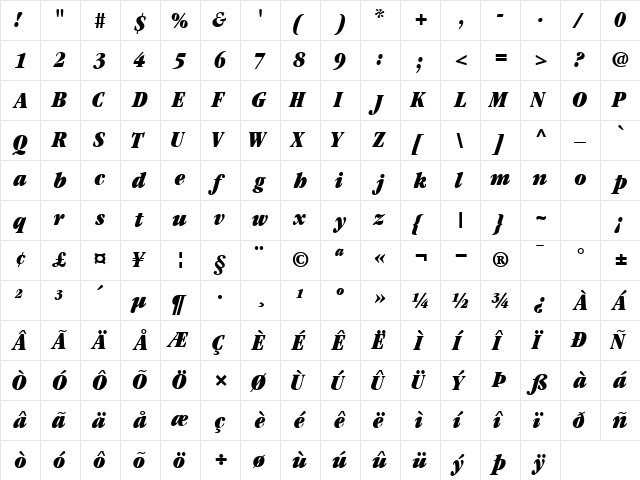
GaramondBlackCondSSK Bold Italic Font Preview
Design Context for GaramondBlackCondSSK Typeface
GaramondBlackCondSSK takes a measured approach to typography — its balanced proportions and neutral character make it a reliable workhorse for both digital and print work. Its italic angle brings a sense of urgency and motion to the letterforms. Its bold stroke weight gives it real presence on the page. The condensed width makes it efficient for tight spaces without sacrificing legibility.
Pro Tip: Try GaramondBlackCondSSK for annotation and caption copy alongside an upright companion — the contrast in angle creates a dynamic but ordered typographic system.